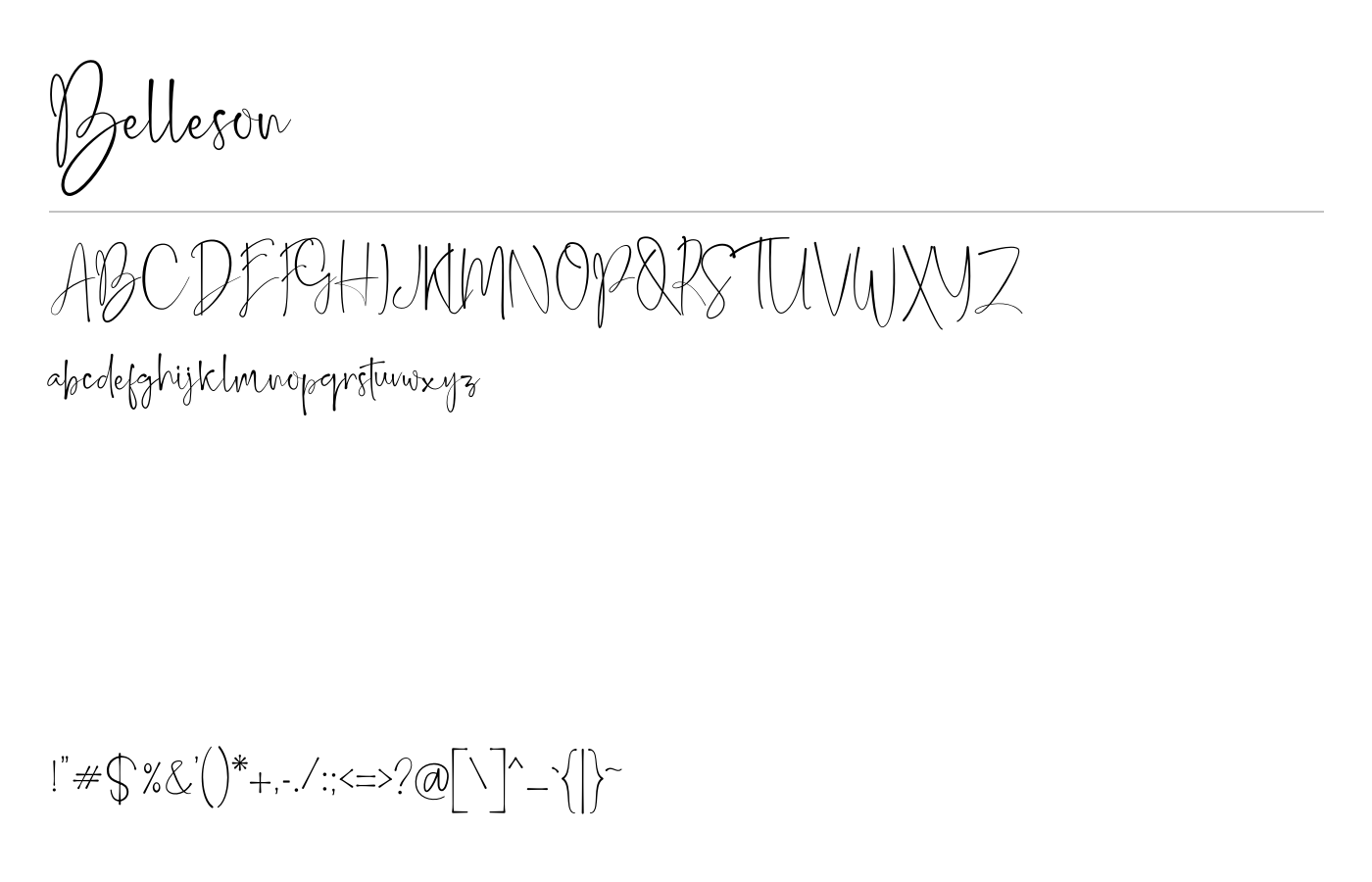
Belleson is a delicate, hand-drawn script font that exudes a whimsical and elegant charm through its slender, flowing strokes and tall, narrow letterforms. Ideal for creative and feminine branding, invitations, or stylish editorial projects, it brings a personal, artistic touch that feels both modern and approachable while maintaining a refined appearance.
Belleson Font
About Belleson Font